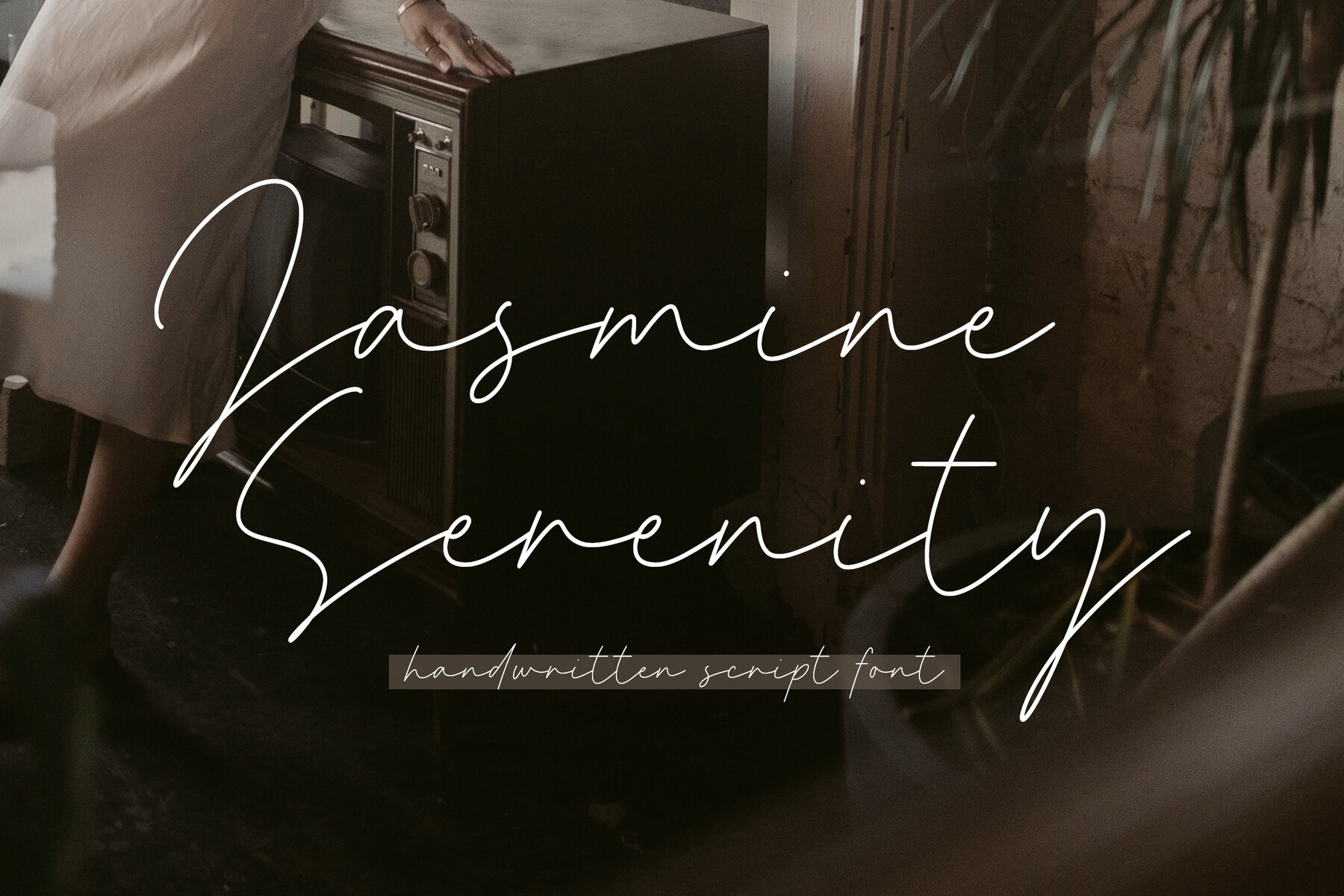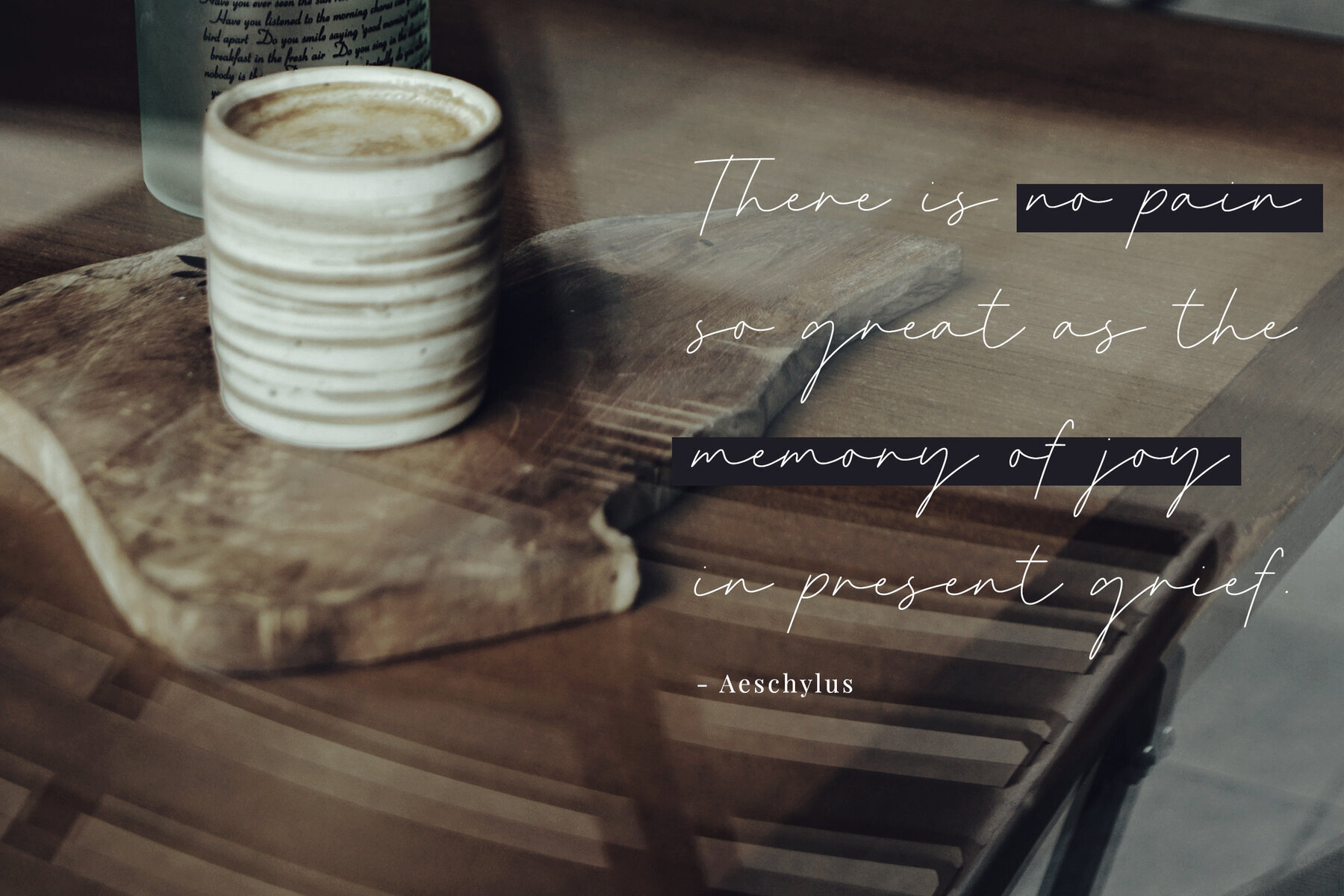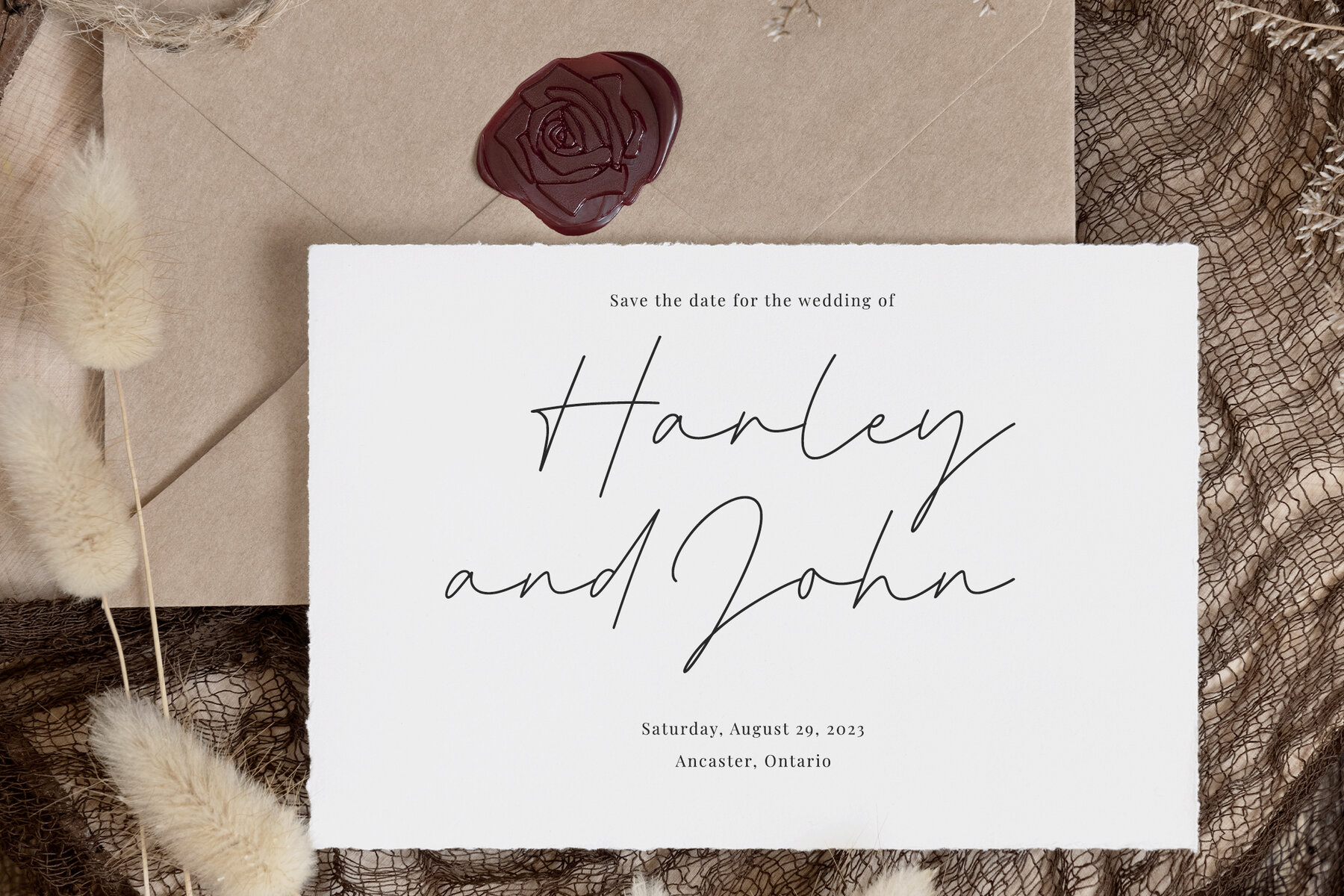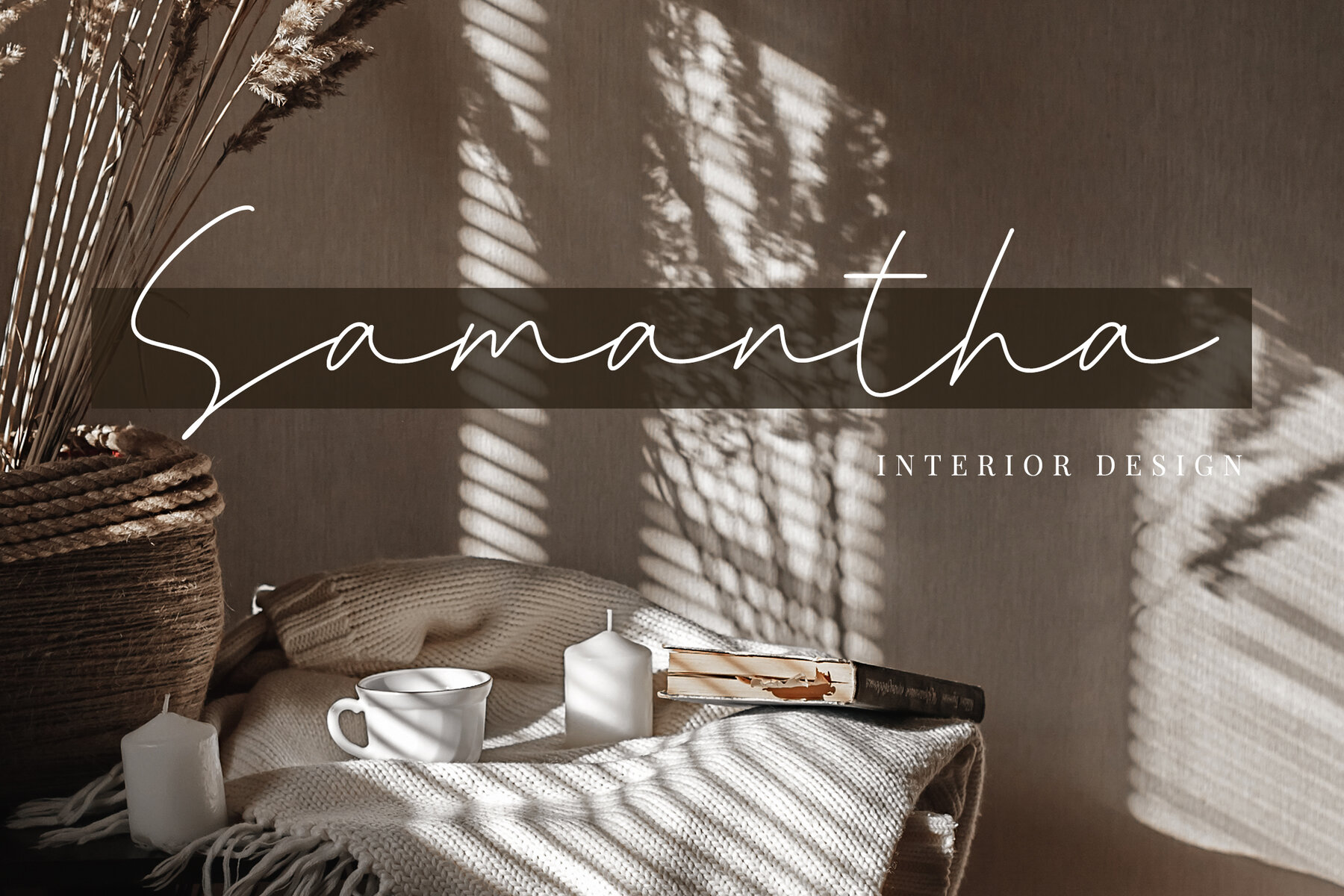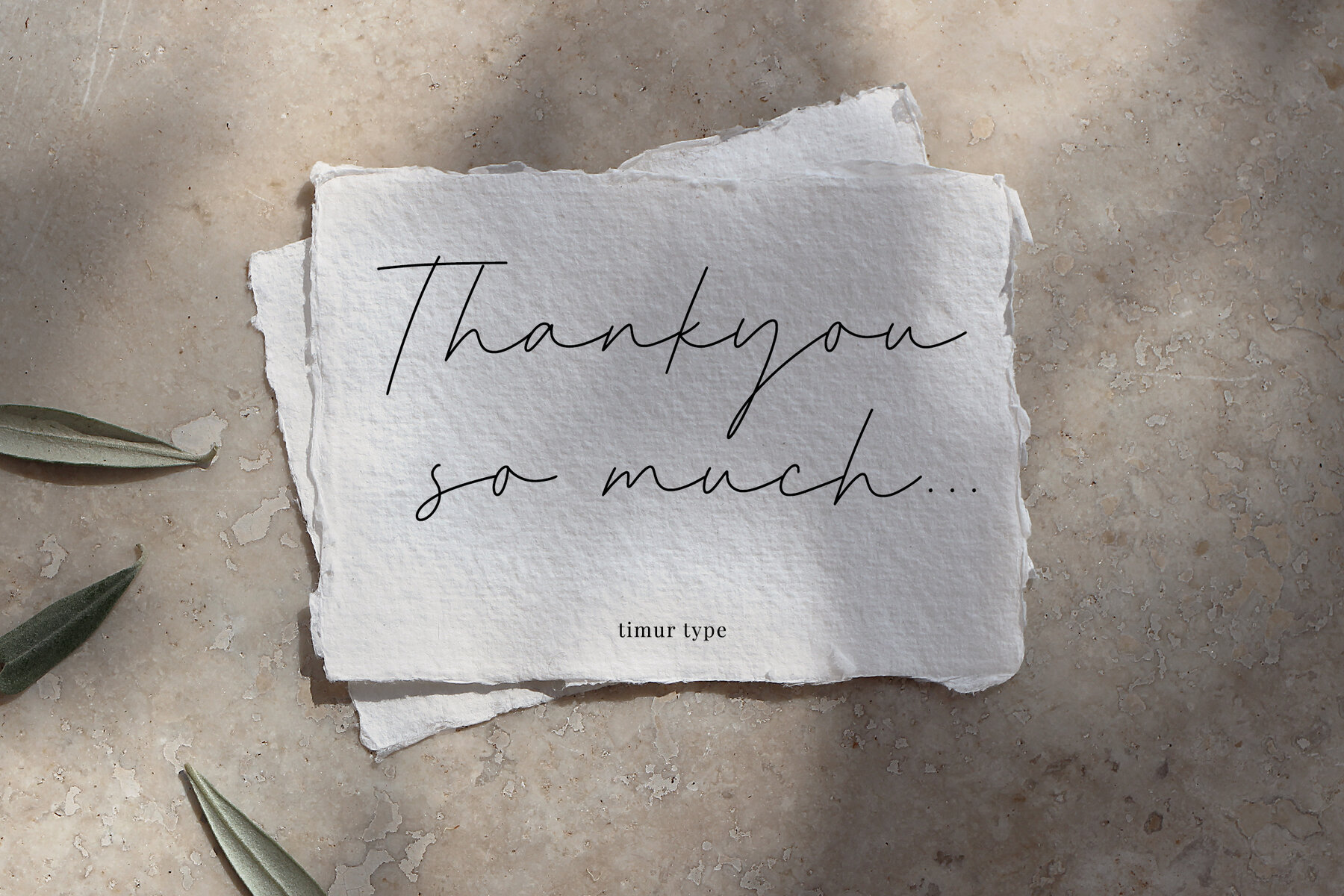
Jasmine Serenity Font
Jasmine Serenity
Jasmine Serenity is a modern and fresh handwritten script font that adds a warm and inviting touch to any project. Its elegant and flowing characters make it ideal for product packaging, branding, and magazine layouts. This font enhances social media graphics, wedding invitations, and any creative endeavor where expressive typography is needed.
With its versatile and charming style, Jasmine Serenity is perfect for conveying messages with a personal touch. Whether used in large headings or subtle background text, this font will seamlessly integrate into your designs, providing a unique and stylish look that stands out.